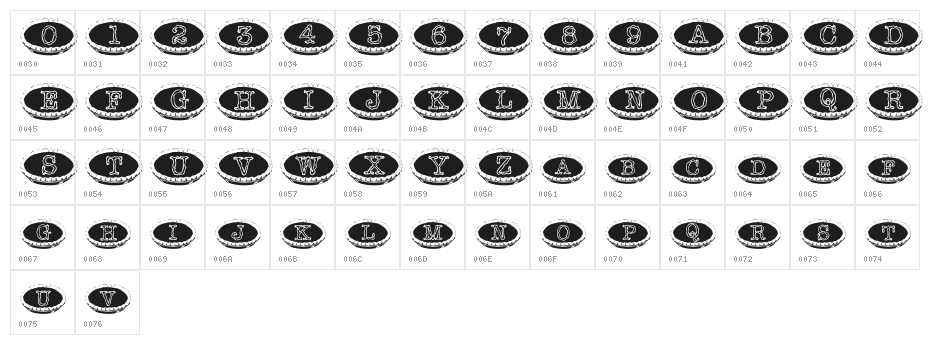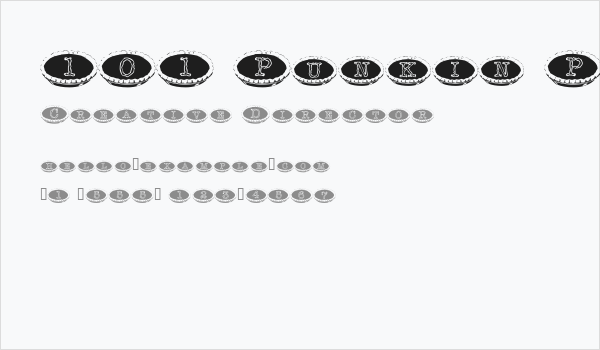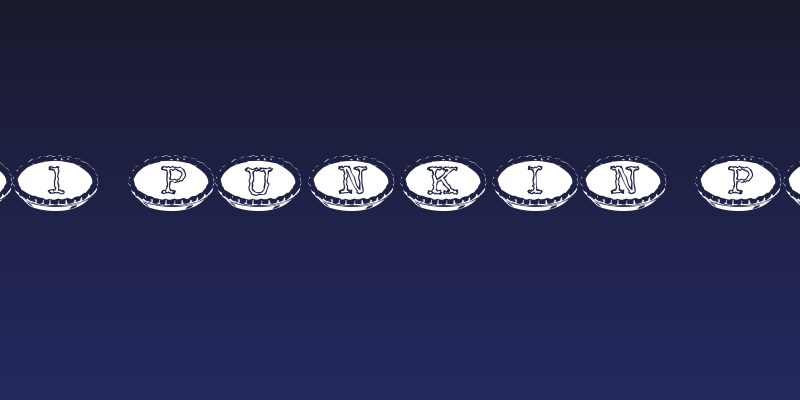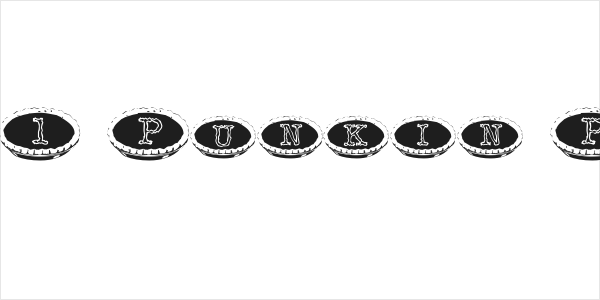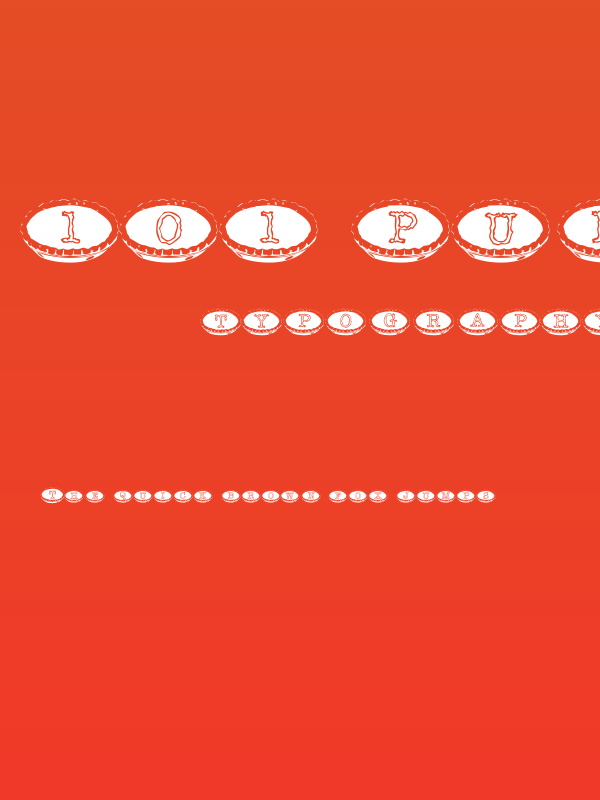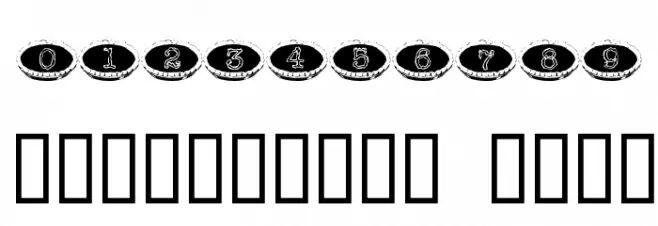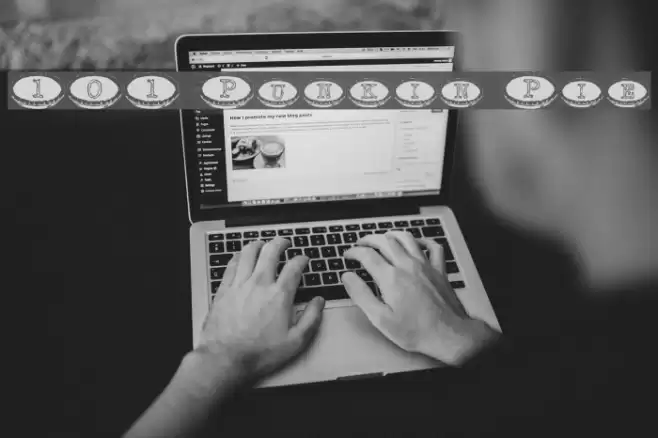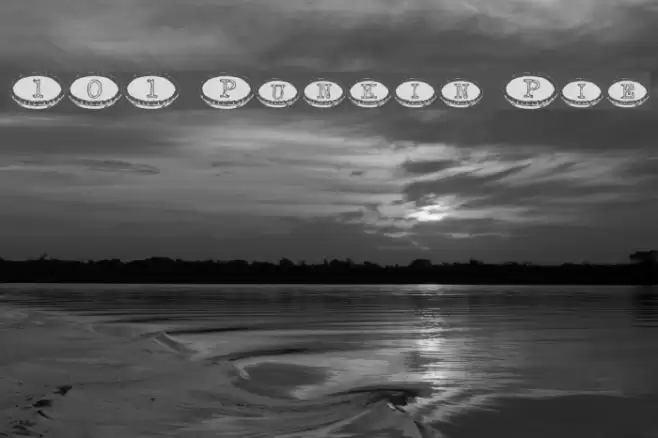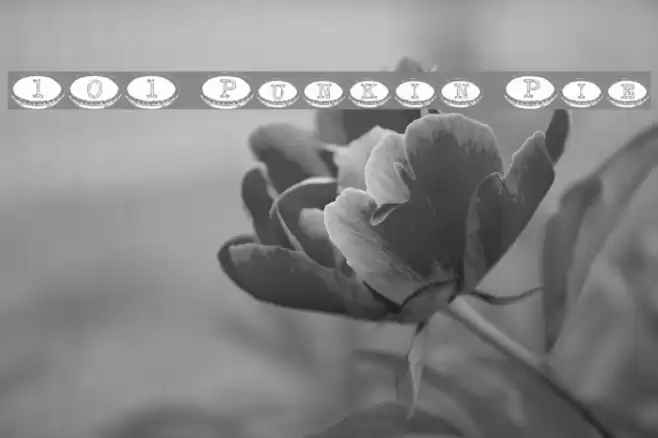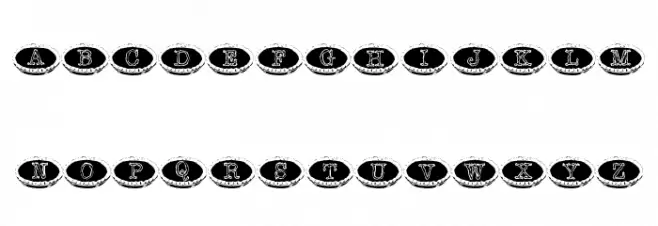
101 Punkin Pie Font
| Gesamtstil | Vintage, Decorative |
| Vorgeschlagene Projekte | Ideal for creative projects such as posters, invitations, or branding that requires a playful and vintage touch. |